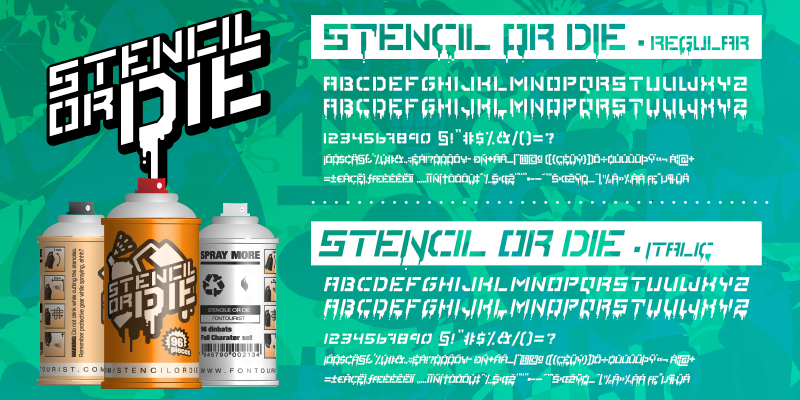
Font name: | Stencile Or Die |
Author: | Fontourist |
Note by Fontourist | |
A stencil font inspired by street art. The straight lines give it an easier form when cutting out the letters for "spray on stencils". Comes in regular and italic versions. |